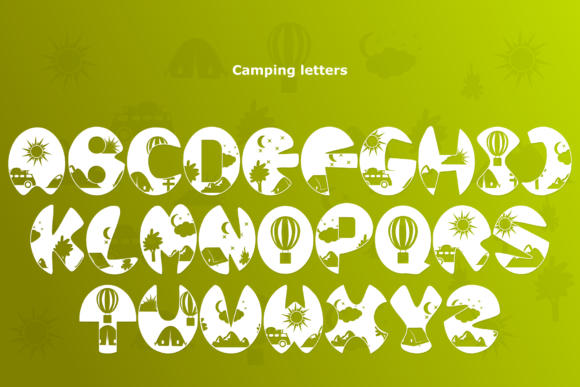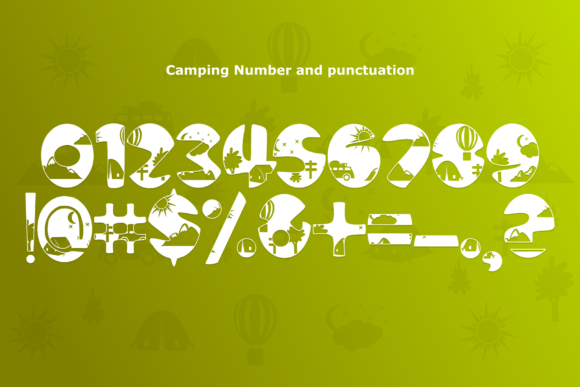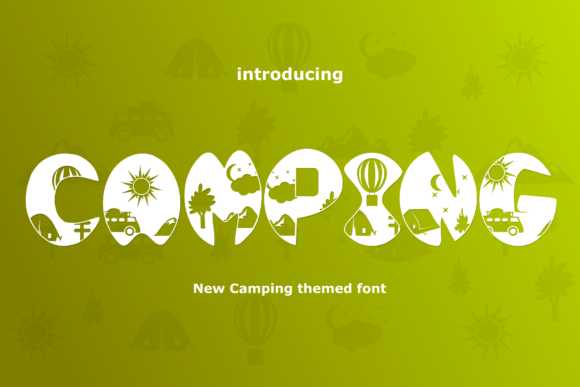
The Ultimate Camping Font Experience: A Designer’s Dream Come True
I’ll never forget the moment I stumbled upon the Camping Font while working on a project for a client who wanted a playful, outdoorsy vibe. I had been scouring the internet for hours, trying to find the perfect font to capture the essence of adventure and fun. And then, I saw it – Camping Font, with its incredibly unique, colorful, and joyful display. It was love at first sight! ✨
• ✅ Unique and Eye-Catching Design: Camping Font is truly one-of-a-kind, making it perfect for projects that need to stand out.
• ✅ Colorful and Joyful: The font’s playful vibe is infectious and can add a touch of whimsy to any design.
• ✅ Highly Versatile: Whether you’re working on a camping-themed project or just want to add some personality to your design, Camping Font is an excellent choice.
While Camping Font is an amazing addition to any design project, there are a few things to keep in mind: 🤔
• ⚠️ Legibility at Small Sizes: As with many display fonts, Camping Font can be a bit tricky to read at smaller sizes. Be sure to test it out in your design to ensure it’s legible.
• ⚠️ Overuse Can Be Overwhelming: While Camping Font is stunning, using it excessively can be overwhelming. Balance is key when incorporating this font into your design.
The Story Behind Camping Font
Camping Font was designed with the great outdoors in mind. Its creator, a passionate designer and nature lover, wanted to capture the essence of adventure and freedom that comes with exploring the wilderness. The result is a font that’s both fun and functional, perfect for designs that need to evoke a sense of joy and excitement.
Q: What makes Camping Font so unique?
A: Camping Font’s unique design, colorful and joyful vibe, and highly versatile nature make it a standout among other fonts.